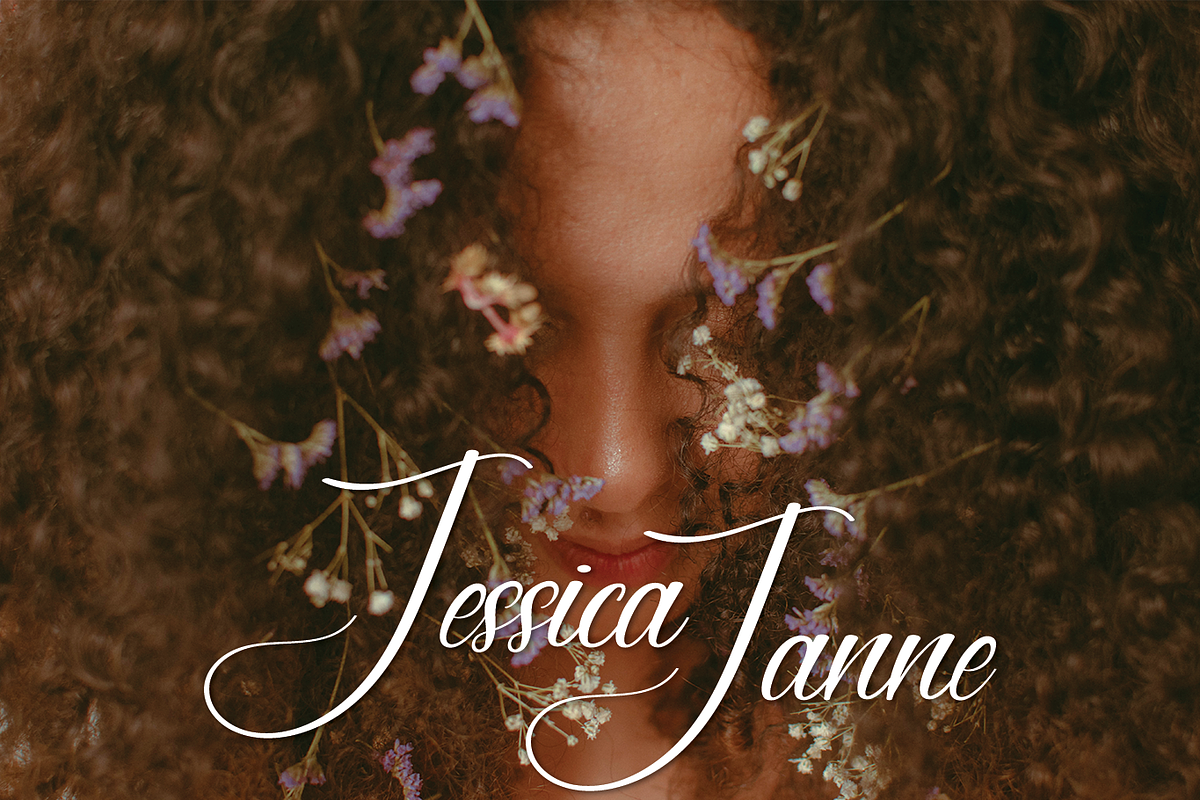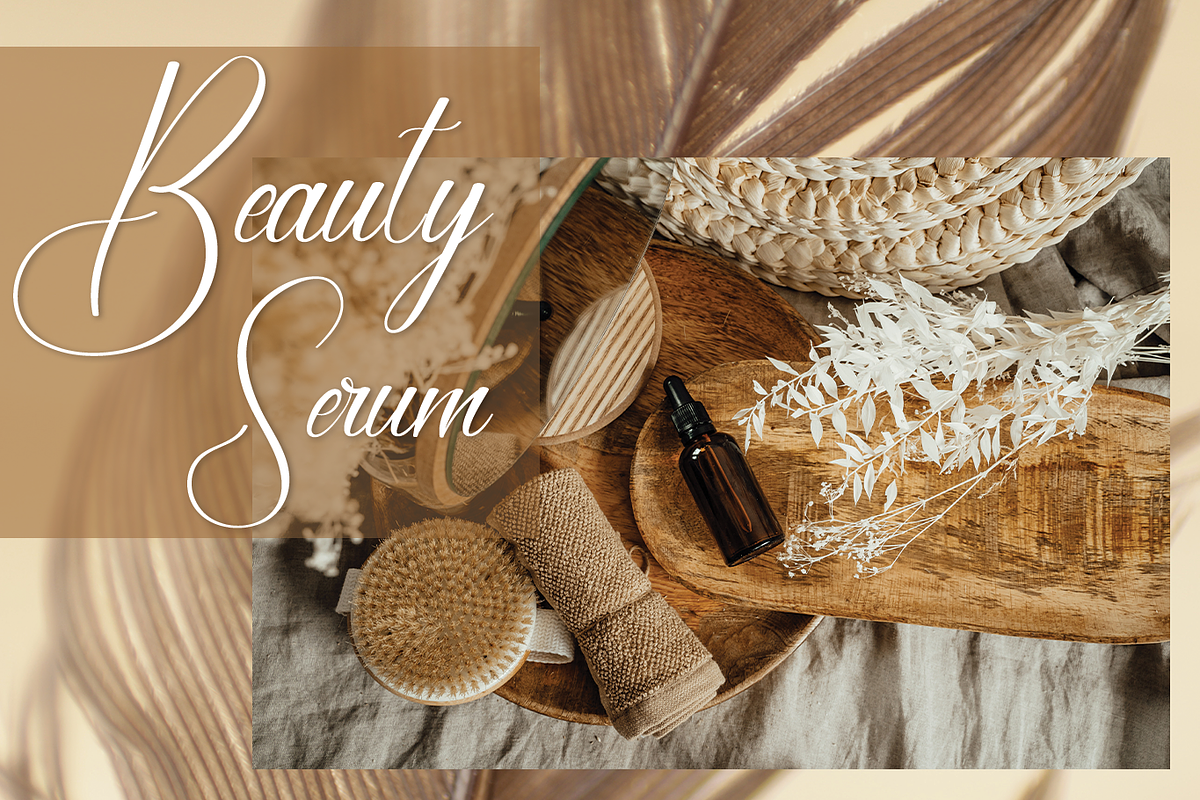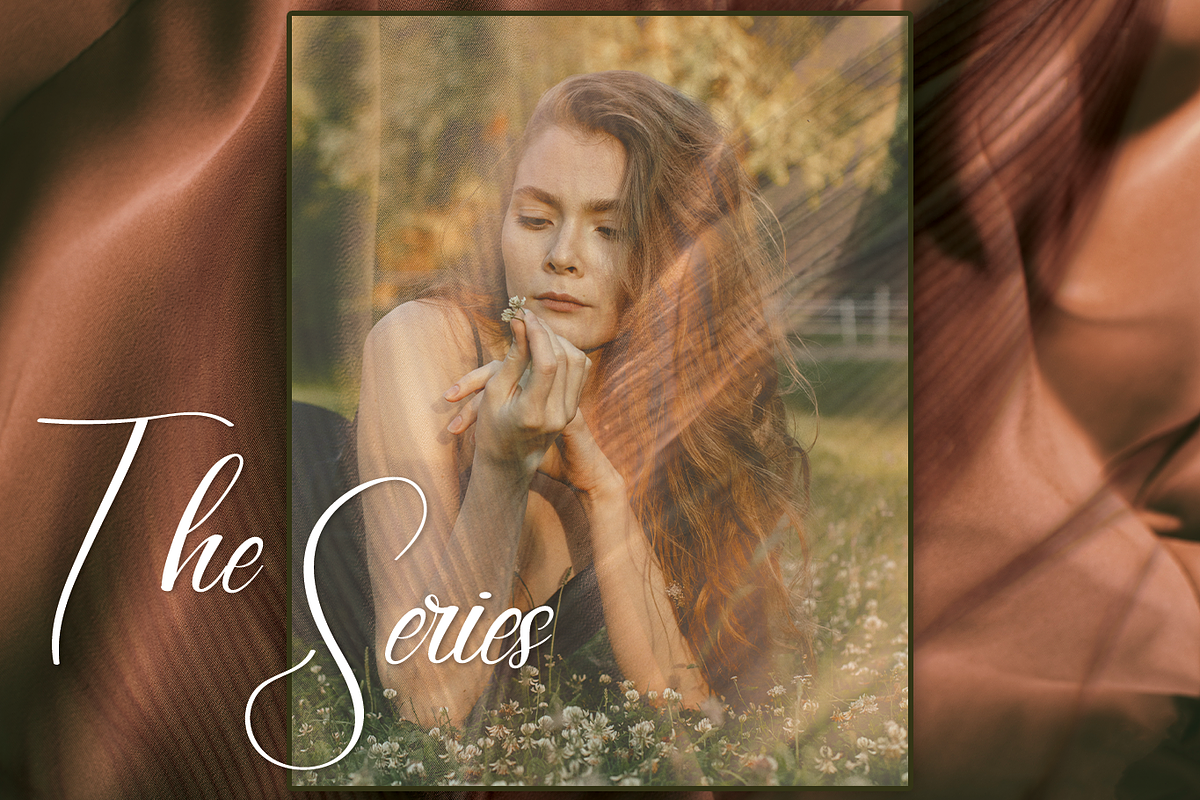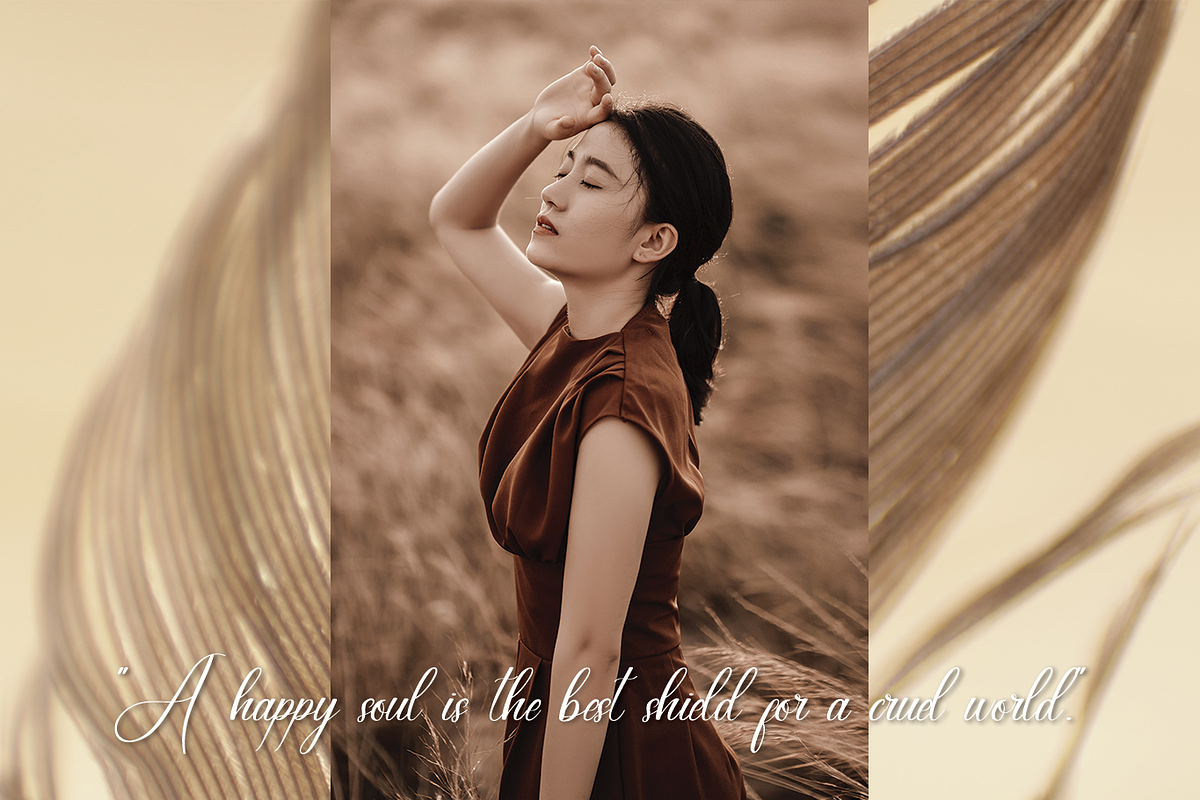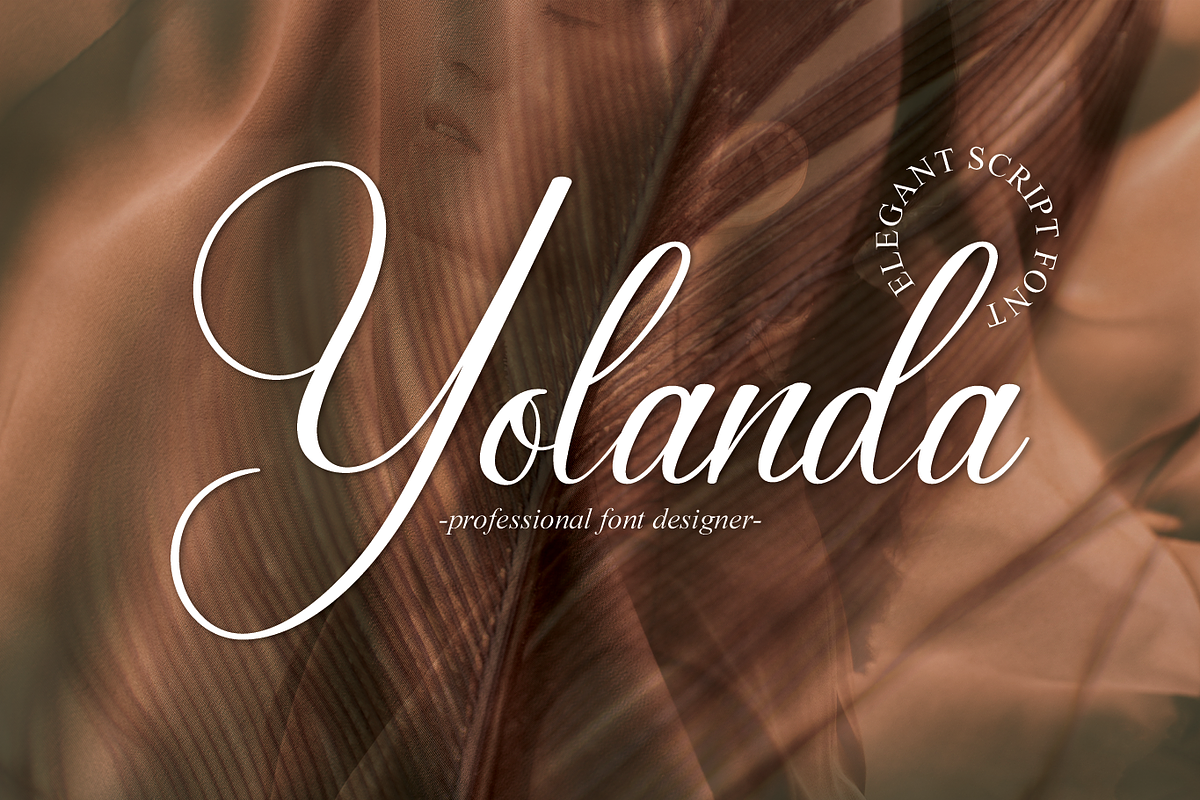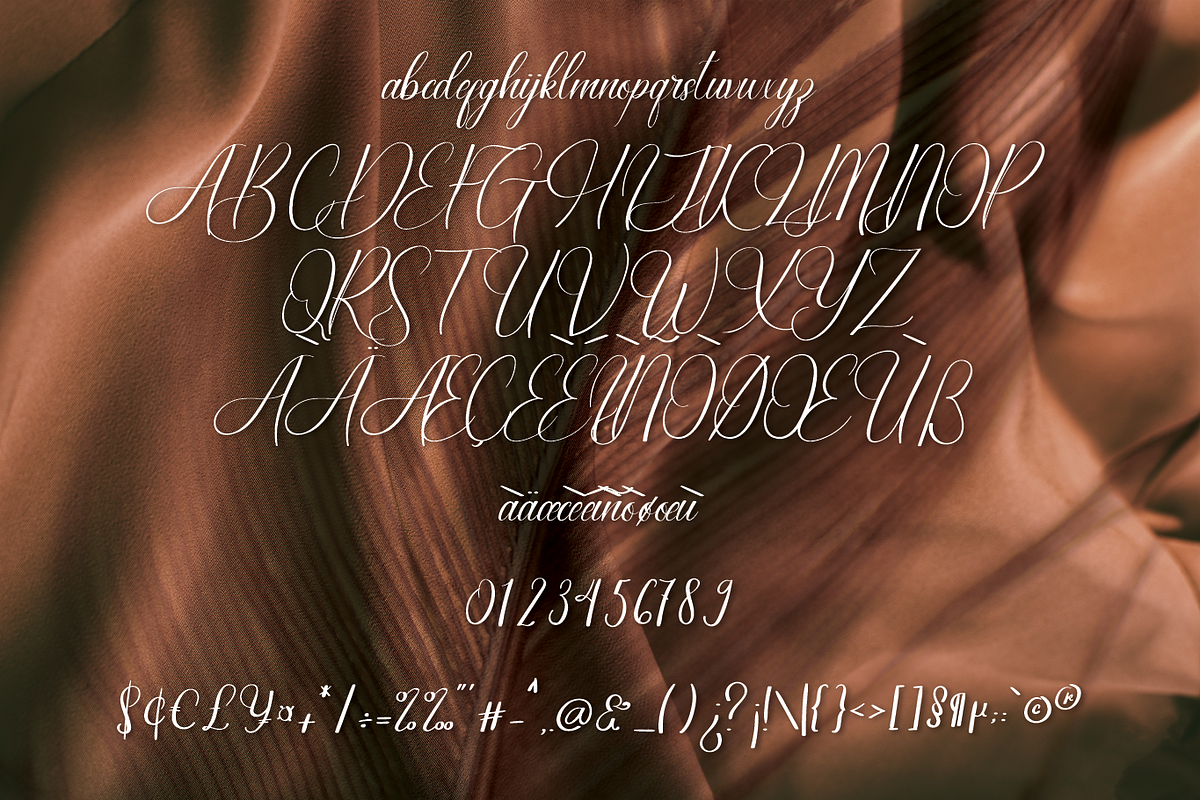
Yolanda
Popular and professional script font. Modern and elegant, this typeface is made of beautiful creative strokes.
This font includes a complete set of beautiful upper and lower case letters, numbers, various punctuation marks, and ligatures. All lowercase letters include a start and end, providing a realistic style. everything you get.